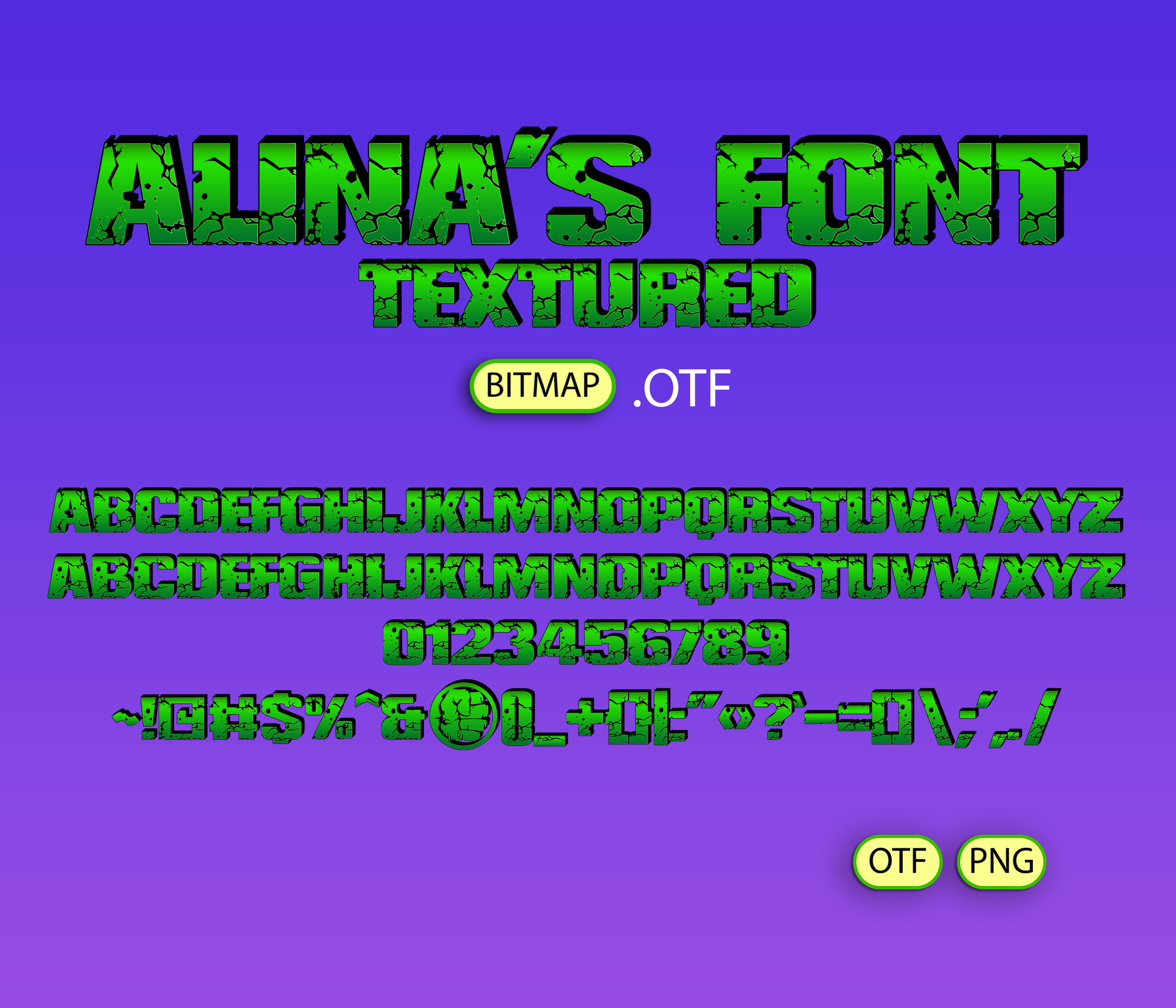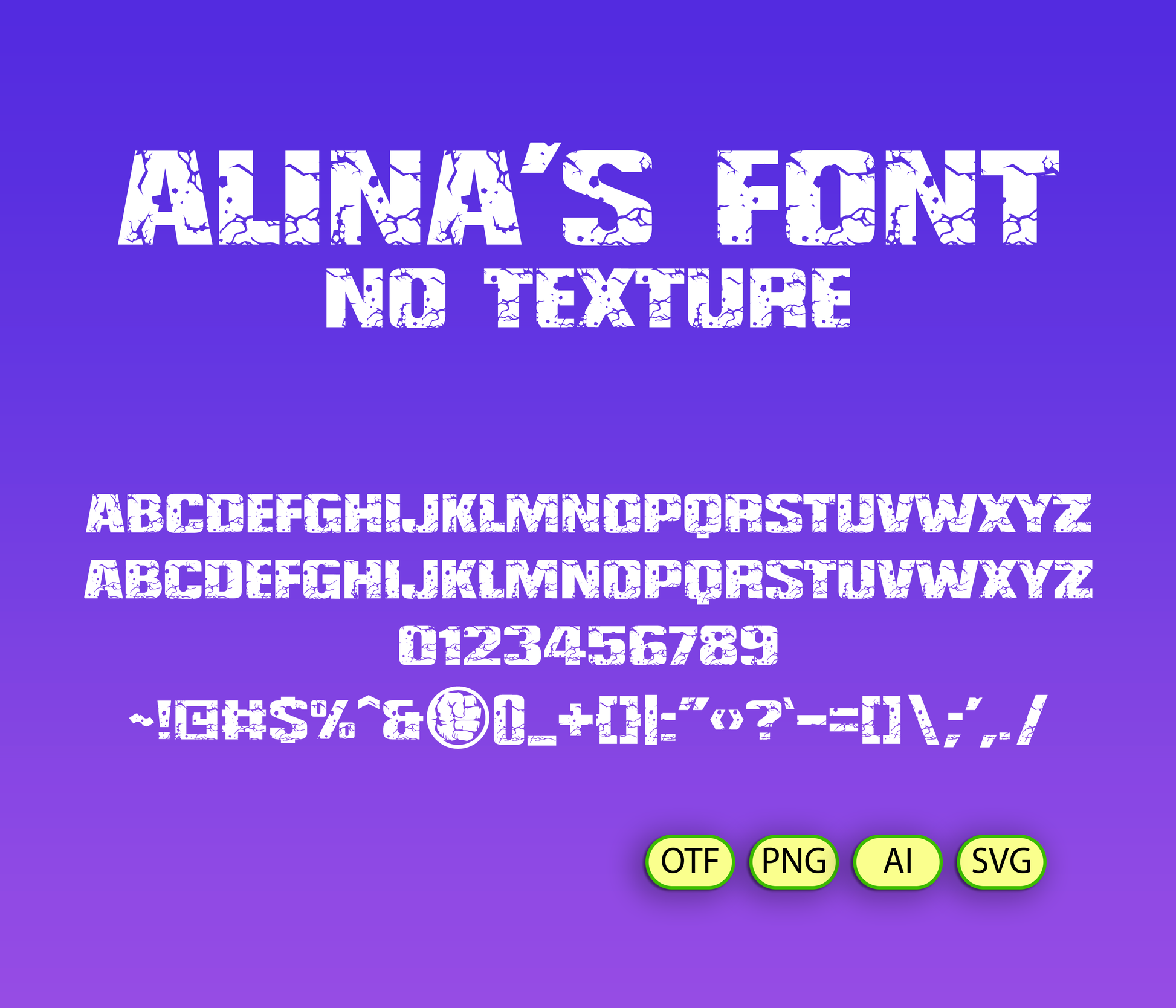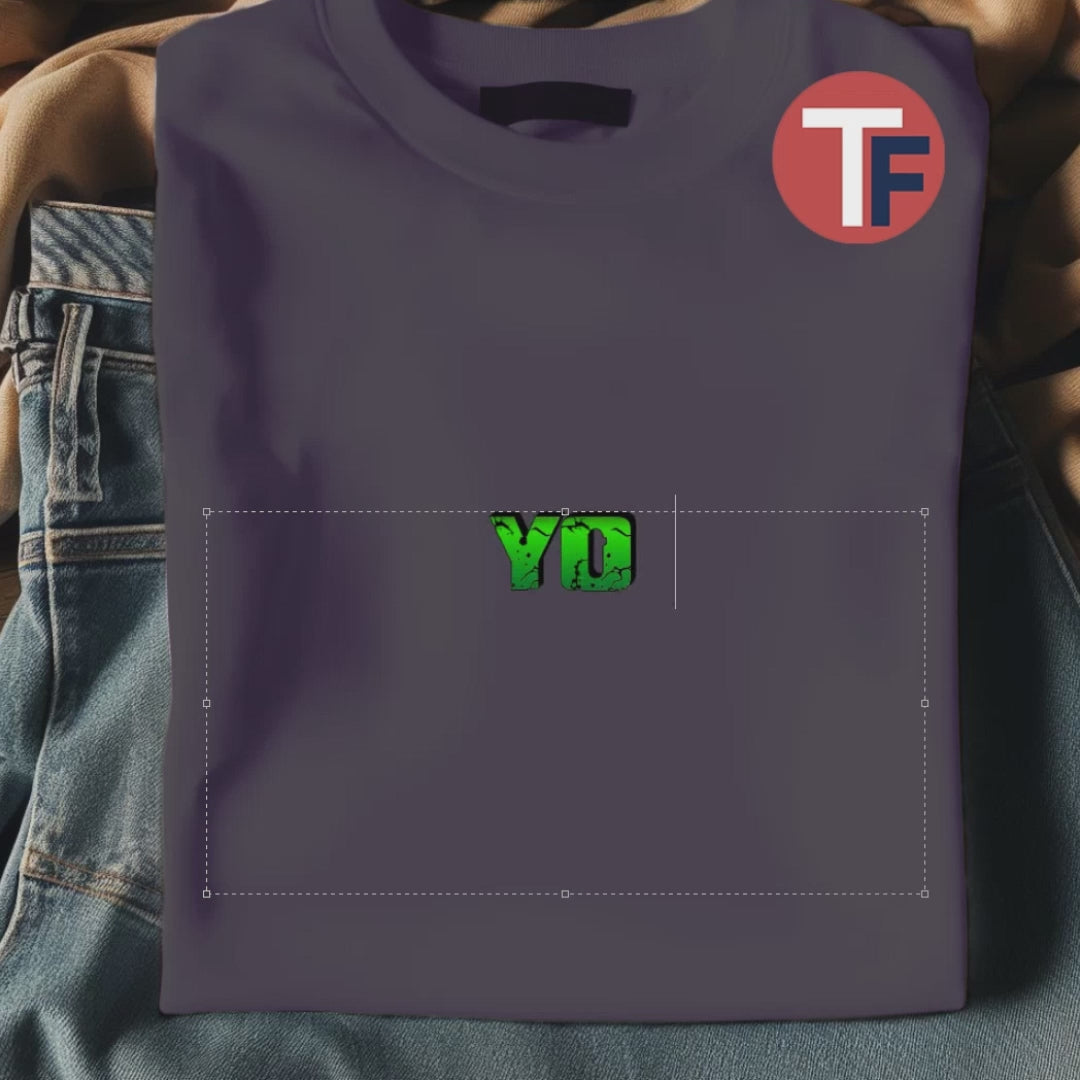
Gamma Giant Font Textured
Smash Your Designs with the Gamma Giant-Inspired Font
Tap into the raw power and unstoppable energy with our specially designed Gamma Giant-inspired font. Perfect for fans, event planners, and designers looking to capture the formidable and heroic essence of an iconic character, this font brings intense and dynamic spirit to your projects. Whether creating event invitations, themed merchandise, or digital content, our Gamma Giant font ensures your projects resonate with sheer strength and impact.
Our Gamma Giant-inspired font features bold, muscular lines and robust, impactful characters that reflect immense power and dynamic nature. This versatile font is ideal for a variety of applications:
- Event Invitations: Perfect for striking invites for superhero parties, movie nights, or comic conventions.
- Merchandise Design: Ideal for designing t-shirts, posters, and accessories that capture the essence of a powerful hero.
- Digital Media: Enhance websites, blogs, and social media content with powerful headers and graphics.
- Educational Materials: Use in presentations, worksheets, and educational content focused on superheroes, science, or storytelling.
- Personal Projects: Add a touch of strength to scrapbooking, DIY crafts, or home decor inspired by heroic adventures.
To ensure maximum usability and flexibility, our Gamma Giant-inspired font includes both textured and non-textured variants. The non-textured version ensures compatibility with all types of software, including Canva. This feature allows users of all skill levels to seamlessly incorporate the font into their designs, enhancing accessibility and ease of use across various digital and print platforms.
Gamma Giant Font Generator
Many people seek out a Gamma Giant Font generator online to mimic this look. Steer clear! No font generator can match the quality of this Gamma Giant Font, which comes in two versatile versions: a textured colored font and a simple font. This is particularly beneficial if you plan to use it with a cutting machine.
Our Gamma Giant font not only pays tribute to a legendary character but also empowers you to infuse your designs with incredible strength and dynamic spirit. Whether crafting promotional materials, designing unique merchandise, or adding a bold touch to personal projects, this font allows you to communicate with the power and intensity that define a true hero. Ready to bring a smashing impact to your creative projects? This font is your key to unlocking a world of powerful and impactful design.